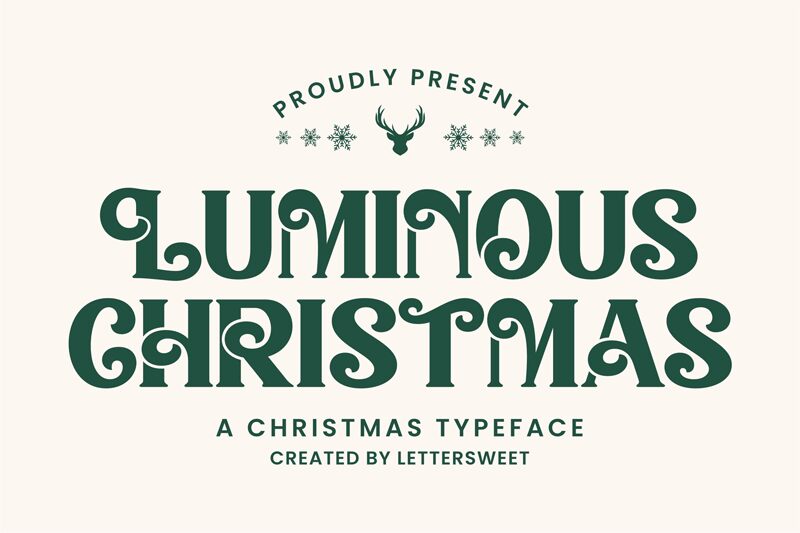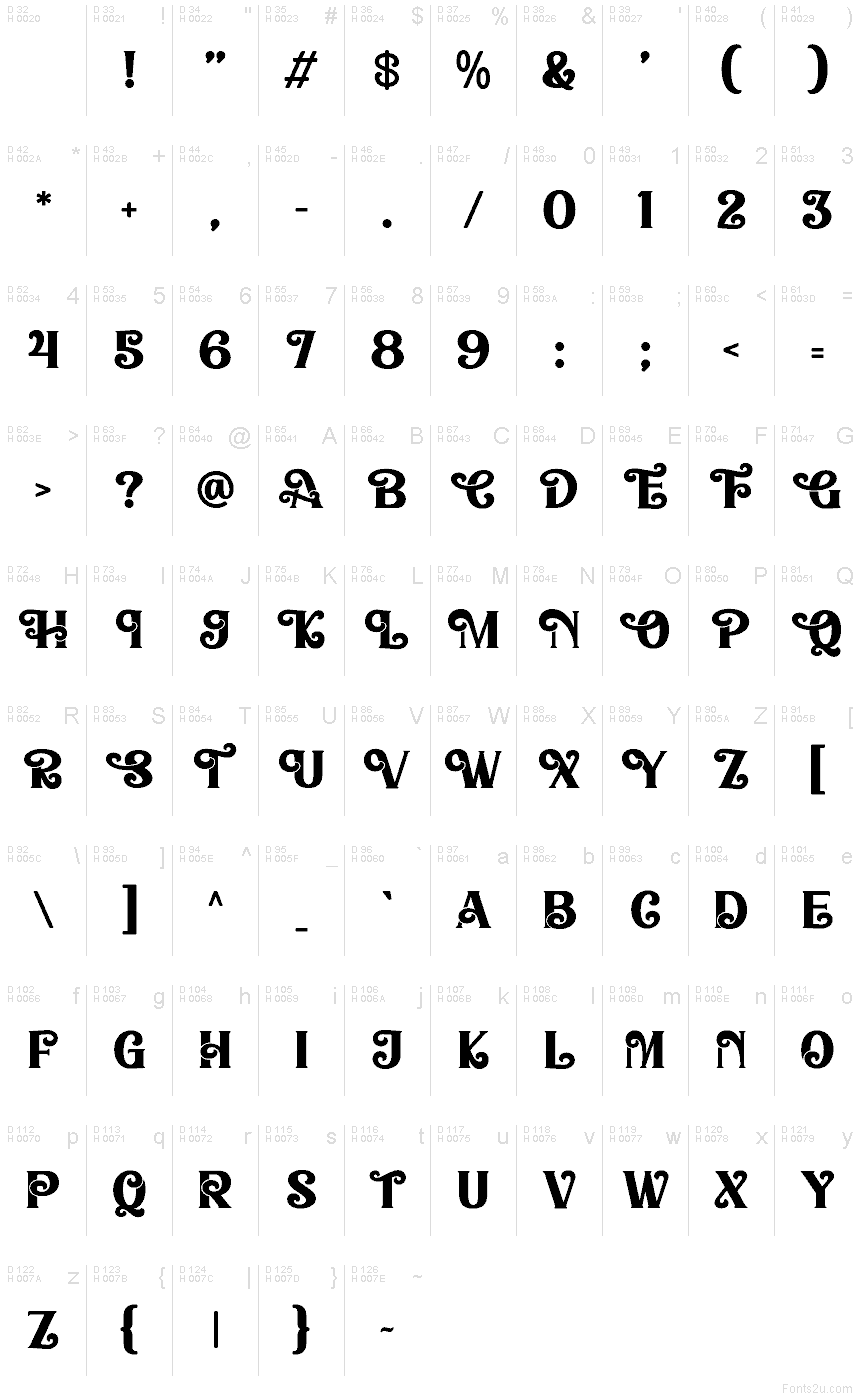
Luminous Christmas Demo Regular
Luminous Christmas font by Lettersweet Studio is a free decorative Christmas typeface that turns every word into glowing holiday ornamentation. Tall, narrow letters curl into playful spirals and loops, packing each line with festive energy while still keeping the text legible. The strokes feel inky and hand-drawn, like a vintage holiday card title pulled straight from a cozy storybook mantelpiece.
Using Luminous Christmas, your headlines instantly read as seasonal without needing extra graphics. This free font shines on greeting cards, party invitations, gift tags, advent calendars, social media posts, and store window signage. It works beautifully at larger sizes where the curls can breathe; pair it with a simple sans serif for body copy to keep your layouts clear and cheerful.